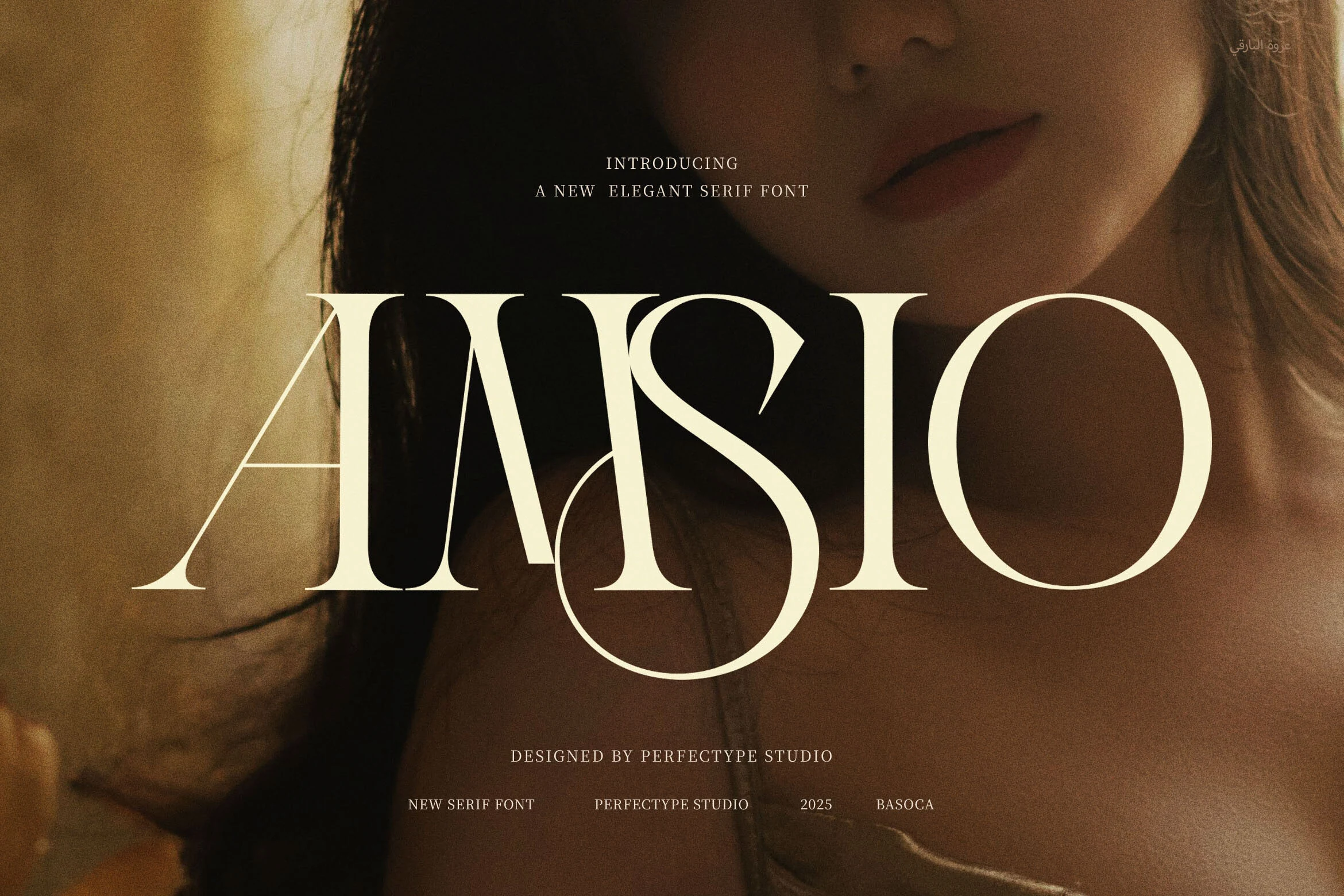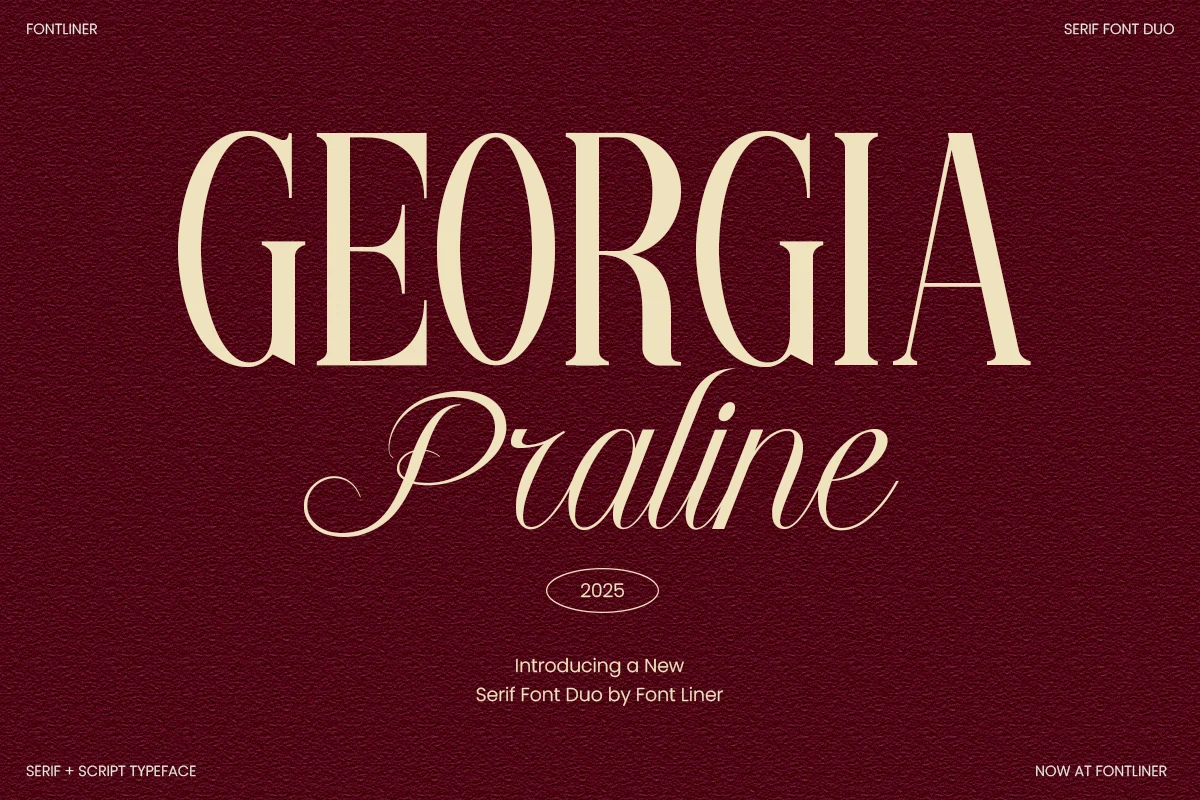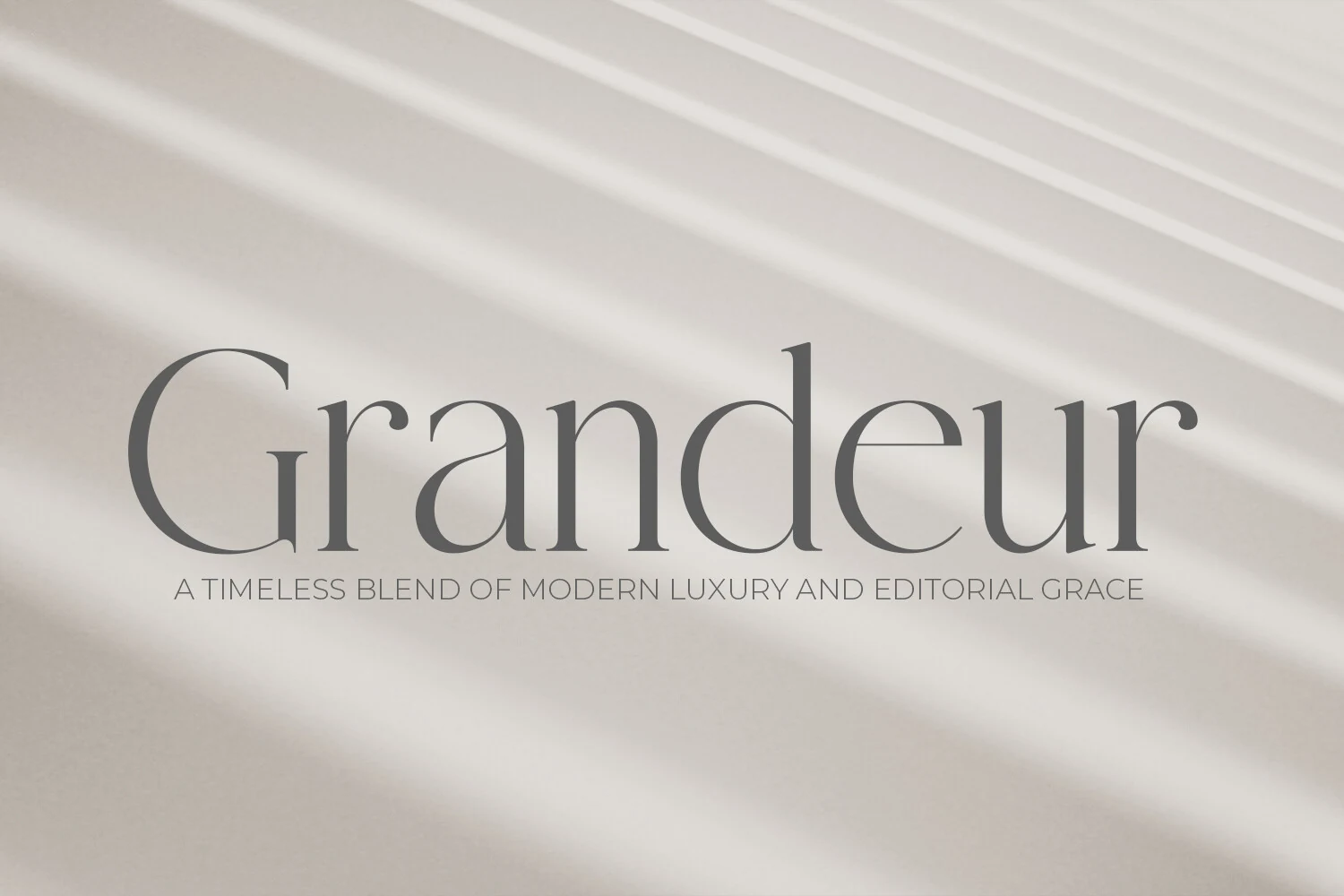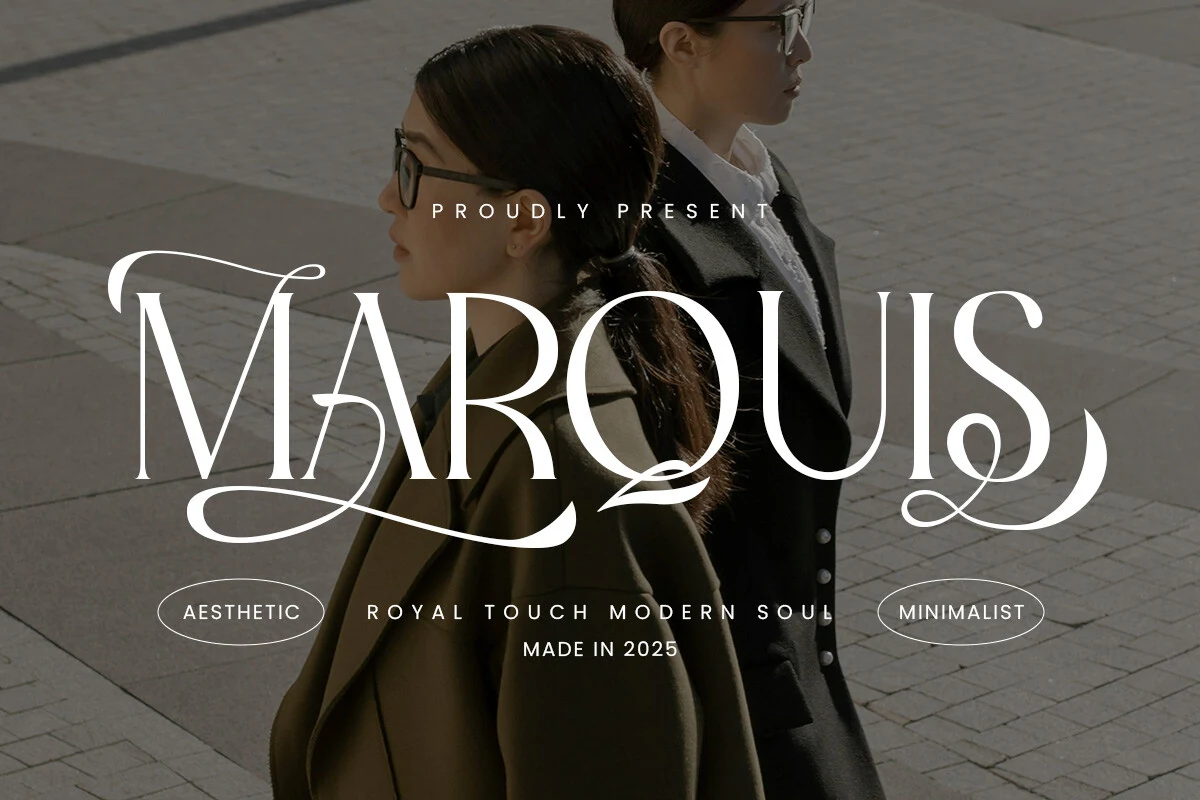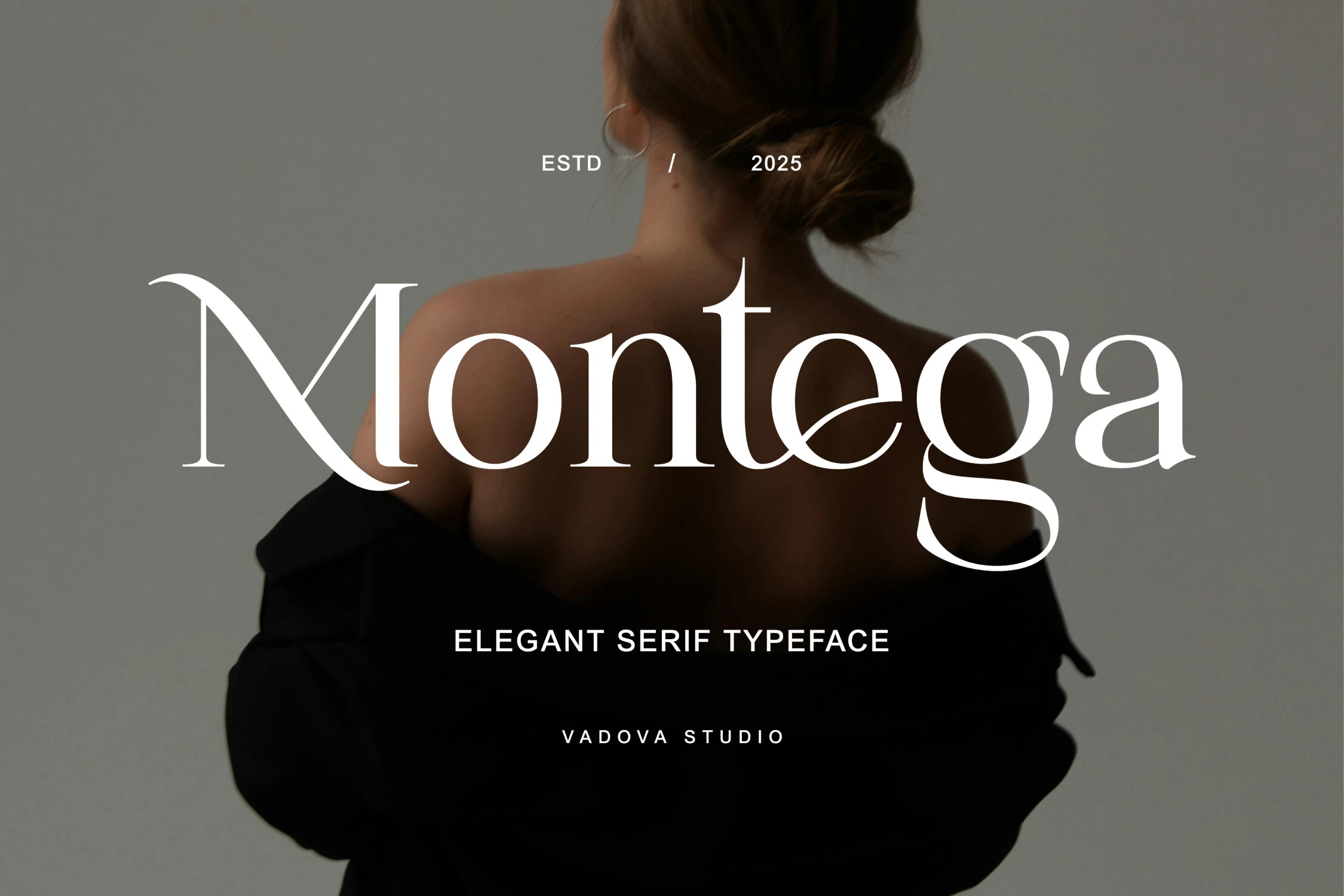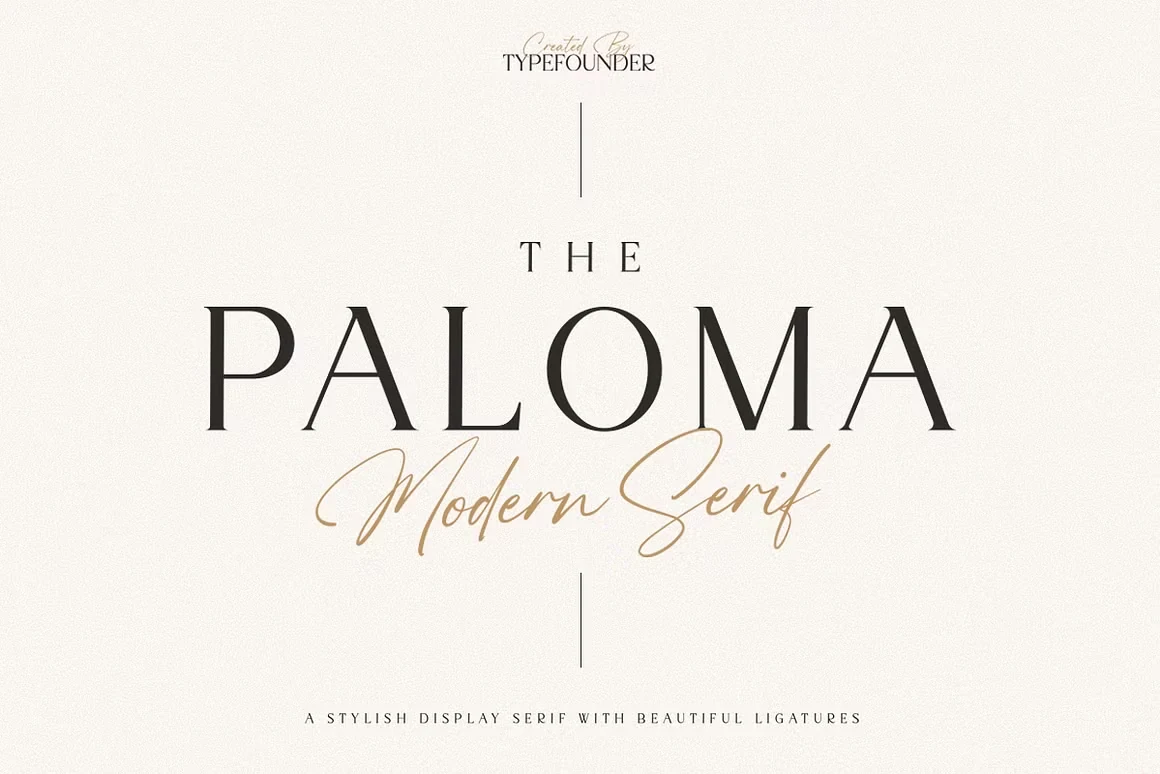
14 Best Elegant Aesthetic Fonts in 2026
Elegant Aesthetic Fonts span sharp high-contrast serifs, connected scripts, weathered textures, and narrow display forms. Together, they serve practical roles in logos, covers, packaging, invitations, posters, social graphics, and other short text where construction and readability matter.
Elegant Aesthetic Fonts: High-Contrast Serif Core
This Elegant Aesthetic Fonts core is connected by upright, high-contrast serif construction, but ranges from clean traditional forms to swashed, ligature-rich display faces.
Mistory Elegant Font
Mistory Elegant Font featuring high-contrast strokes, sharp serifs, and intertwined curved letterforms.
Mistory Elegant Font builds headline presence through tight kerning, intertwining letters, alternate forms, and distinctive ligatures. Sharp serifs, high contrast, elongated curves, and teardrop terminals make it highly customized, though overlapping details are best reserved for large titles, logos, and short branding lines.
Amsio Elegant Serif Font
Amsio Elegant Serif Font with high-contrast strokes, sharp pointed serifs, and wide open letterforms.
Amsio Elegant Serif Font uses wide proportions, open circular counters, bold verticals, and very fine hairlines to create an airy editorial impression. Its balanced letterforms suit magazine covers, packaging, logos, and other display applications, while the delicate contrast calls for generous sizing rather than small copy.
Grandeur – Elegant Classic Serif Font
Grandeur – Elegant Classic Serif Font displaying the word Grandeur in a high-contrast serif typeface with sharp bracketed serifs and open counters.
Grandeur – Elegant Classic Serif Font is a dependable choice for composed headlines and book covers, thanks to open counters, pointy bracketed serifs, and a steady upright posture. Its strong thick-to-thin contrast remains clear at display sizes, delivering a traditional structure without decorative swashes or a slanted stance.
The Paloma Font
The Paloma Font featuring a bold, high-contrast serif with sharp elongated serifs and wide proportions.
The Paloma Font gives prominent text a polished presence through wide proportions, strong vertical strokes, sharp elongated serifs, and pronounced contrast. It reads clearly in logos, magazine covers, and structured layouts, but its display-focused weight is better for short branding and cover text than extended reading.
Bezoria – Elegant Serif Font
Bezoria - Elegant Serif Font features high-contrast serif letterforms with bracketed serifs and curved swash extensions on the B and a.
Bezoria – Elegant Serif Font keeps a serif foundation but adds curved swash extensions to the B and a. Its tall x-height helps larger lettering hold together in logos, branding, wedding stationery, and editorial designs, although the high contrast and flourishes are less practical for compact copy.
Semika Font
Semika Font showing the word SEMIKA in a high-contrast serif with decorative flourishes and sharp serifs.
Semika Font combines sharp serifs and high stroke contrast with soft curves, a swash-like S terminal, and extended flourishes. That period-led construction works well for logos, packaging, wedding designs, and similarly short compositions, but thin strokes and decorative terminals can lose clarity when reduced too far.
Marquis – Elegant Modern Serif Font
Marquis - Elegant Modern Serif Font displayed with high-contrast strokes, sharp elongated serifs, and decorative swashes.
Marquis – Elegant Modern Serif Font uses a calligraphic-inspired baseline, terminal swashes, sharp elongated serifs, and stylish ligatures to distinguish headlines and logos. The upright structure remains organized, but its high contrast and flourishes need display scale, making it a poor fit for compact text blocks.
Wolles Elegant Modern Serif Font
Wolles Elegant Modern Serif Font displaying tall, high-contrast serif lettering with sweeping swash terminals on the W and S.
Wolles Elegant Modern Serif Font combines tall proportions, geometric construction, fine-point serifs, and sweeping W and S terminals. Delicate hairlines balance bold vertical stems for controlled headings, logos, and editorial designs, while the extreme contrast keeps it firmly in display territory rather than body text.
Montega Font
Montega Font featuring a high-contrast display serif with sharp serifs and ornamental swash-like curves.
Montega Font uses sharp pointed serifs, delicate strokes, and selected swash-like curves to create a signature-led direction for fashion, beauty, and editorial branding. It works particularly well in large headlines and marks, where its ornamental details remain visible; smaller settings reduce its clarity.
How to Choose the Right Font
Choose among these Elegant Aesthetic Fonts by matching construction to scale: use open counters and restrained serifs when readability matters, and reserve tight joins, swashes, ligatures, or brush connections for short large text. Wide faces suit covers and packaging, while condensed forms work best when a poster or logo needs a narrow silhouette.